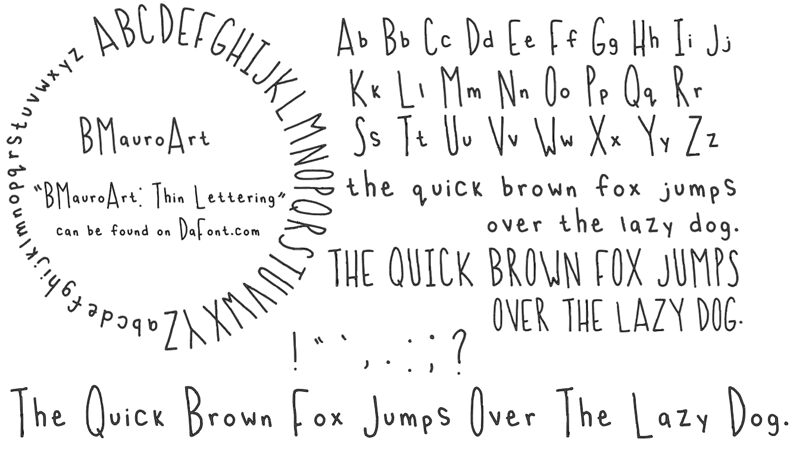
Bmauroart _ Thin Letter Regular
B Mauro Art is a beautifully crafted handwritten font created by the talented B Mauro. With its light weight and condensed width, this font is perfect for adding a personal touch to any project. Whether you're creating invitations, greeting cards, logos, or social media graphics, B Mauro Art will bring a unique and artistic flair to your designs. This font's whimsical style is perfect for projects that need an organic and playful feel. So why not try out B Mauro Art today and bring your creative vision to life?
This is my very first font, so enjoy!